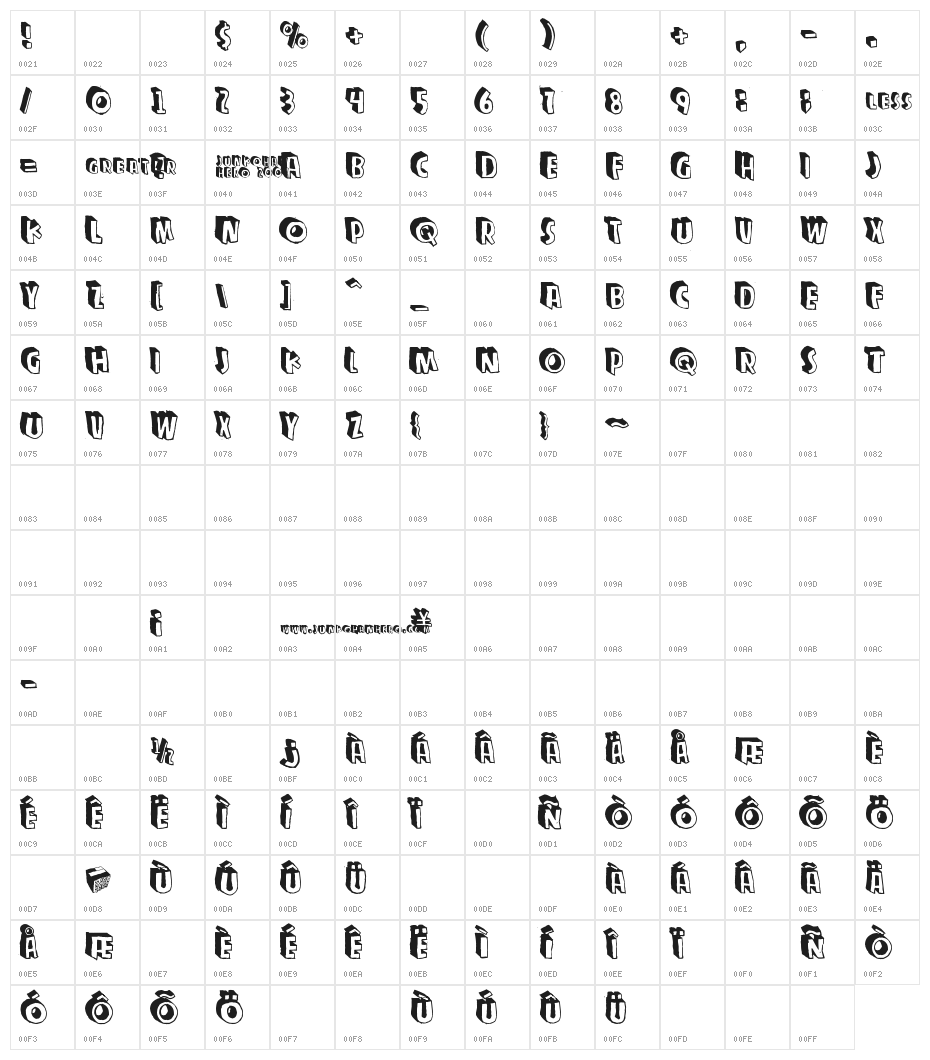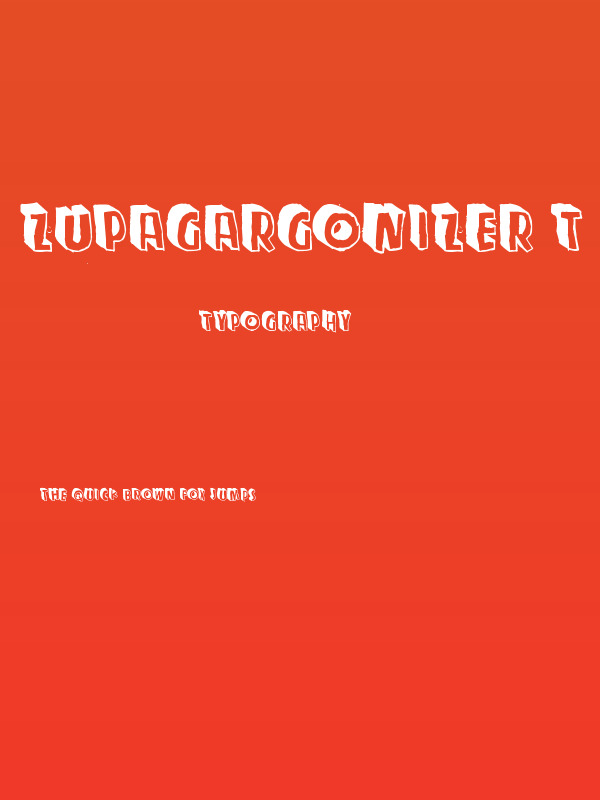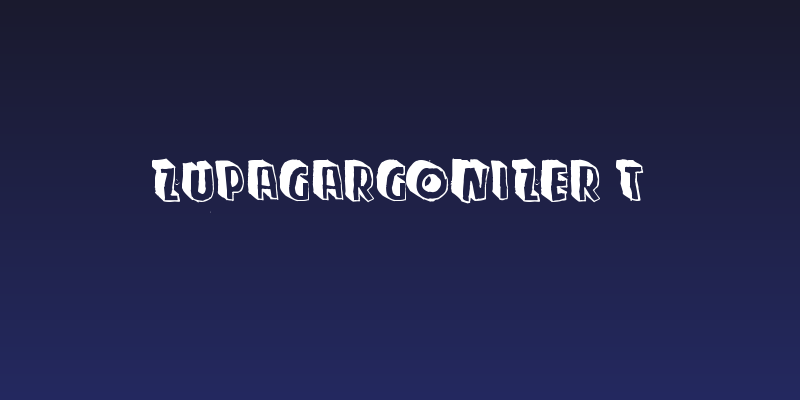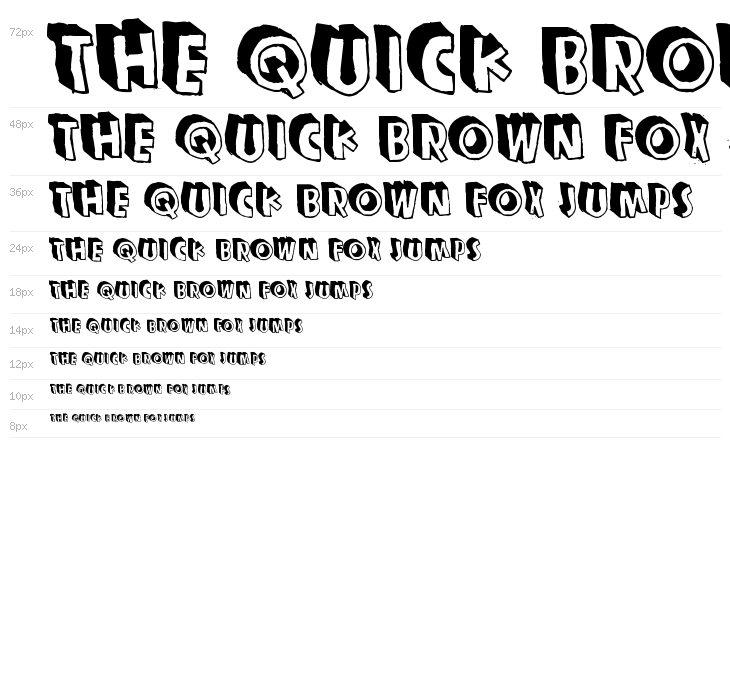
Zupagargonizer T Font
Zupagargonizer T Description
This font features a bold, three-dimensional appearance with a playful and dynamic style. The letters are uppercase and lowercase, with a shadow effect that gives them a sense of depth and movement. The characters have a slightly irregular and hand-drawn quality, adding to their whimsical charm. The numbers and special characters maintain the same bold and shadowed style, ensuring consistency across the entire typeface. This font is ideal for projects that require a fun and eye-catching design.
| Overall Style | Playful, Dynamic |
| Use Case | Headlines, Posters, Branding |
| Proposed Projects | Perfect for comic books, children's book covers, posters, and playful branding. |